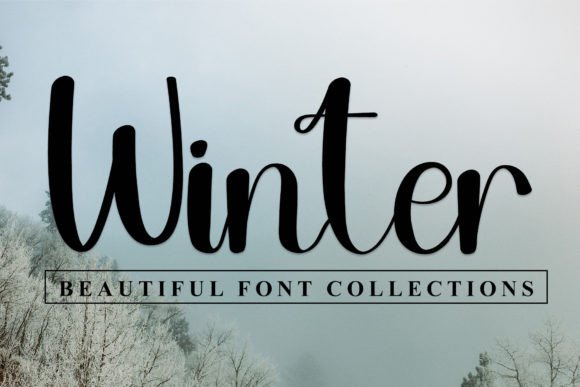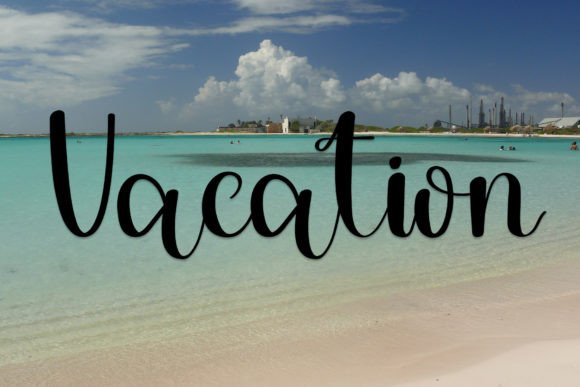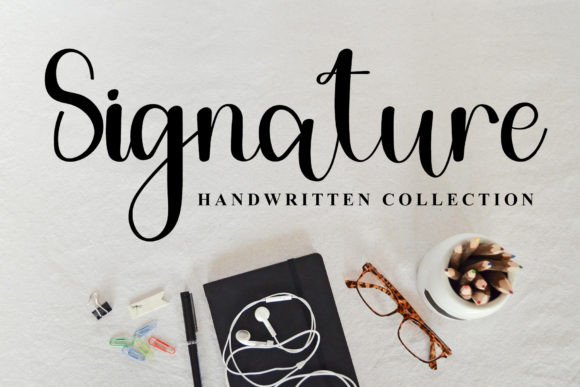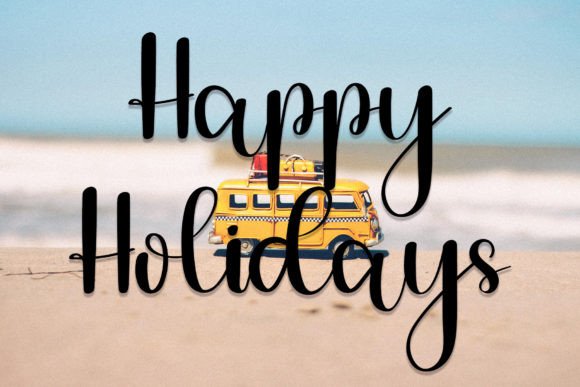
Introducing Firsttime Font: Elevate Your Designs with Elegance
Are you on the hunt for a font that adds a touch of sophistication and elegance to your projects? Look no further than Firsttime Font, a stunning handwritten font that is sure to capture your heart. With its unique blend of style and timelessness, Firsttime Font is the perfect addition to your design arsenal.
The Beauty of Firsttime Font
Firsttime Font is a neat and beautiful handwritten font that boasts an elegant touch, making it ideal for a wide range of projects. Whether you’re a designer, crafter, or DIY enthusiast, this font is sure to inspire your creativity. Its incredibly distinct and timeless style sets it apart from other fonts, making it a standout choice for anyone looking to create spectacular designs.
What Makes Firsttime Font So Special?
So, what makes Firsttime Font so special? For starters, its elegant and refined style makes it perfect for projects that require a touch of sophistication. Whether you’re designing a logo, creating a poster, or crafting a social media graphic, Firsttime Font is sure to elevate your design to the next level. Additionally, its handwritten nature gives it a personal and unique feel that is sure to resonate with your audience.
Firsttime Font is versatile and can be used for a wide range of projects, including:
- Social media graphics and ads
Whether you’re working on a personal project or a client’s, Firsttime Font is sure to help you create a design that is both visually stunning and effective.
Why Choose Firsttime Font?
With so many fonts to choose from, why should you choose Firsttime Font? Here are just a few reasons:
- Unique style: Firsttime Font has a unique and timeless style that sets it apart from other fonts.
- Elegant and refined: This font is perfect for projects that require a touch of sophistication and elegance.
- Versatile: Firsttime Font can be used for a wide range of projects, from logos and branding materials to social media graphics and crafting projects.
Tips for Using Firsttime Font
Here are a few tips for using Firsttime Font in your designs:
- Pair it with a sans-serif font: Pairing Firsttime Font with a sans-serif font can create a beautiful contrast and add visual interest to your design.
- Use it for headings and titles: Firsttime Font is perfect for headings and titles, where its elegant and refined style can really shine.
- Experiment with different colors: Firsttime Font looks great in a variety of colors, so don’t be afraid to experiment and find the perfect hue for your design.
In conclusion, Firsttime Font is a beautiful and elegant handwritten font that is perfect for designers and crafters looking to add a touch of sophistication to their projects. With its unique style, versatility, and ease of use, Firsttime Font is sure to become a favorite in your design arsenal. So why wait? Download Firsttime Font today and start creating spectacular designs that will leave a lasting impression!